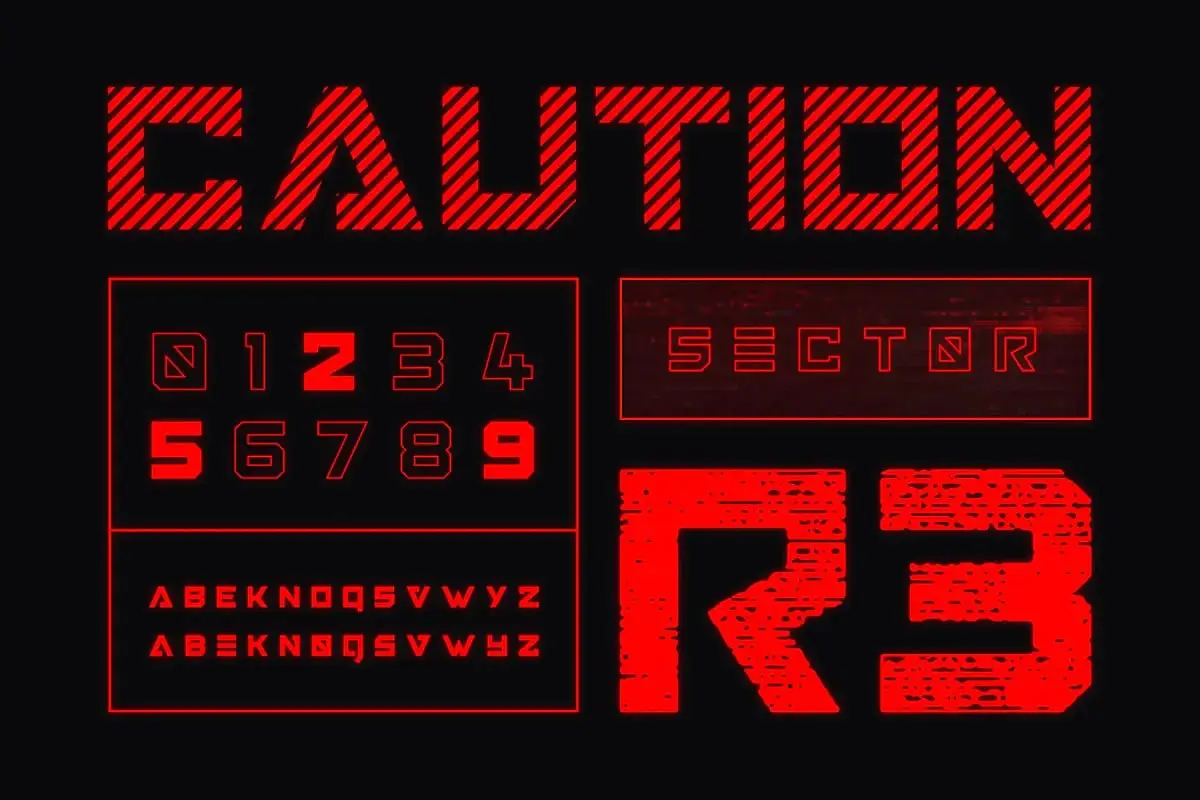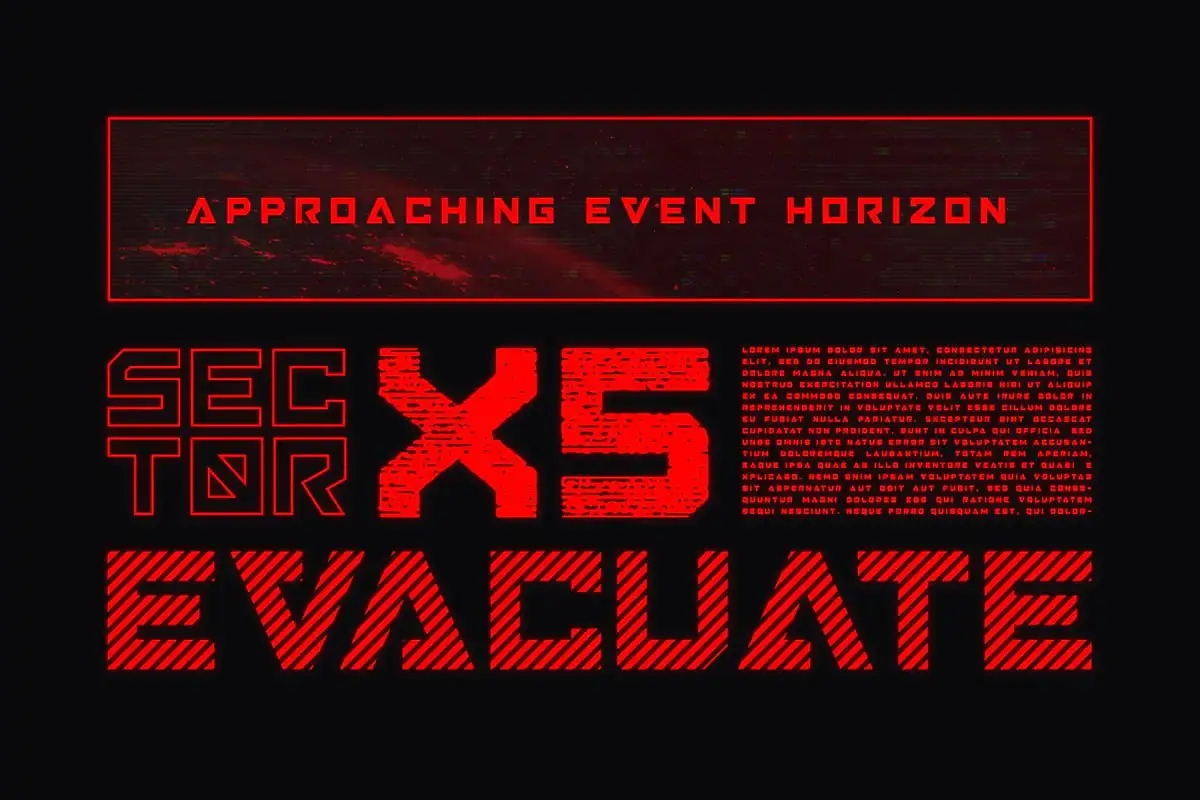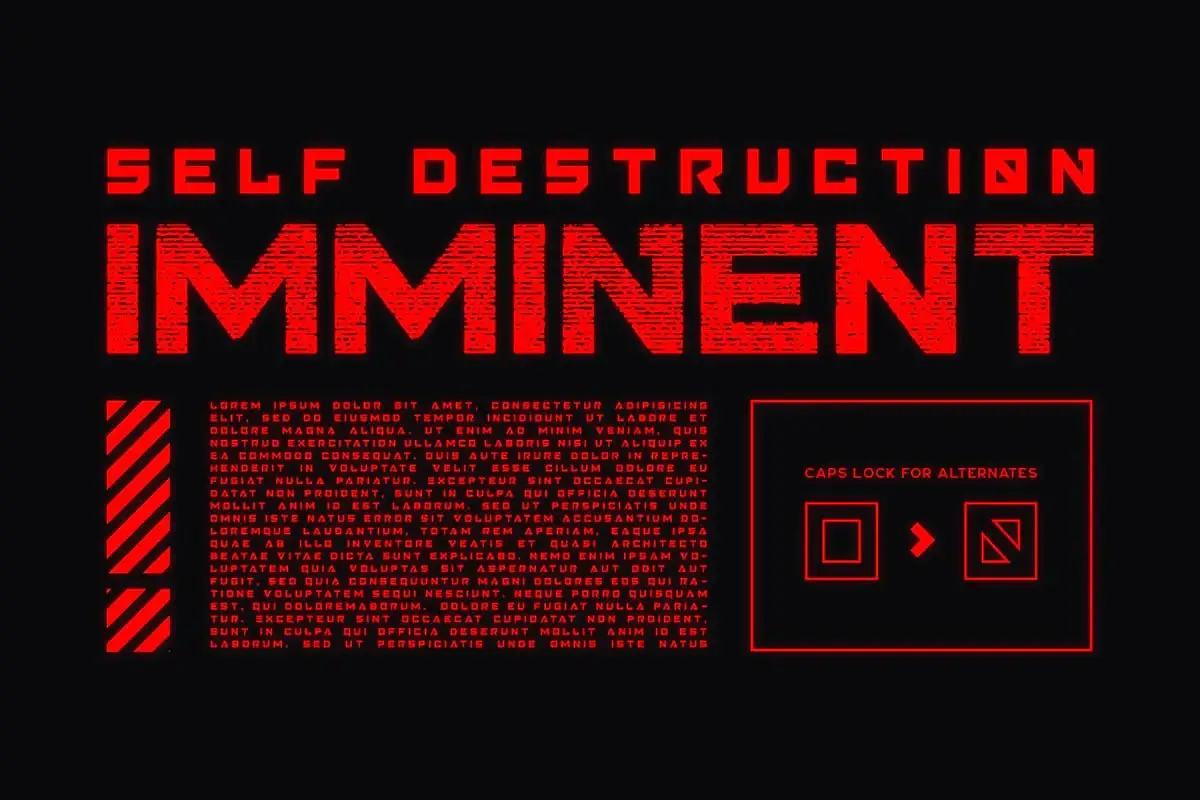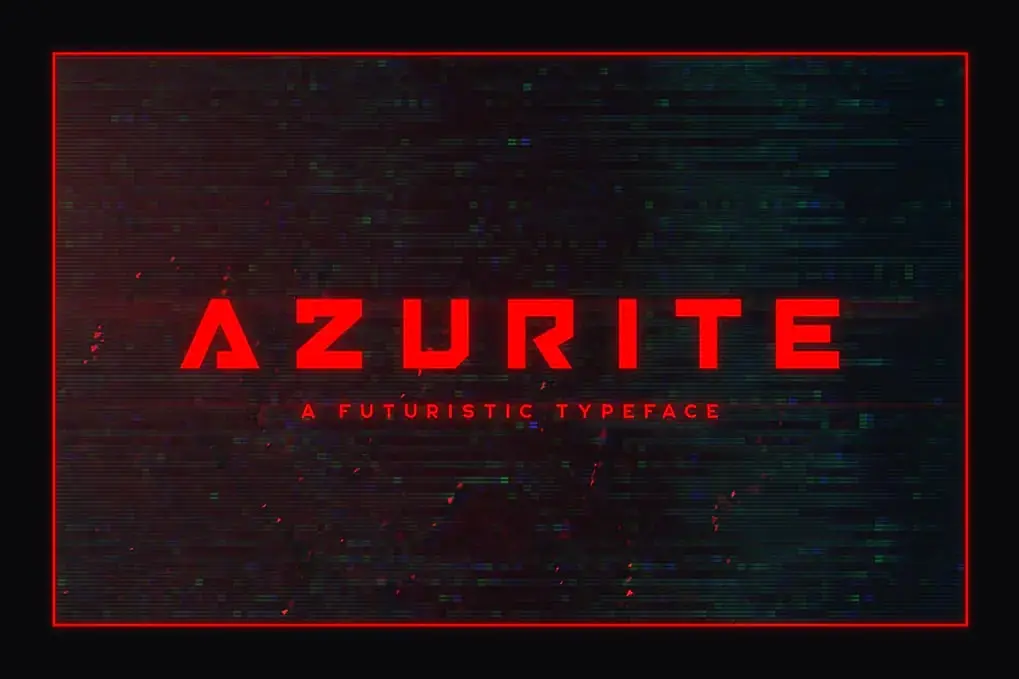
The Mehmetrehatugcu-Azurite Typeface is a striking and versatile font designed for a variety of applications. With its modern aesthetic and clean lines, this typeface is perfect for branding, logos, web design, and print materials.
- Stylish and contemporary design
- Multiple weights for flexibility
- Uppercase and lowercase letters
- Numerals and punctuation included
- Weights: Regular, Bold
Utilize the Mehmetrehatugcu-Azurite Typeface in your next project to create eye-catching visuals that stand out. Ideal for both digital and print applications, it adds a unique character to your designs.